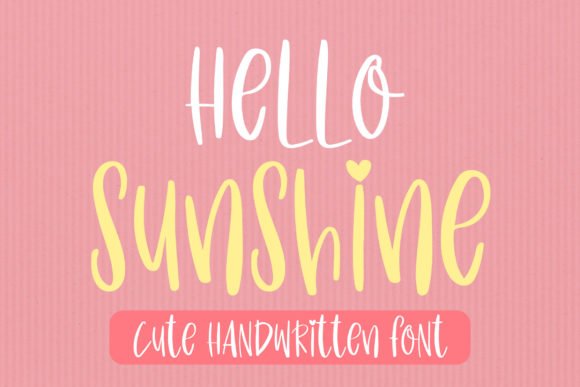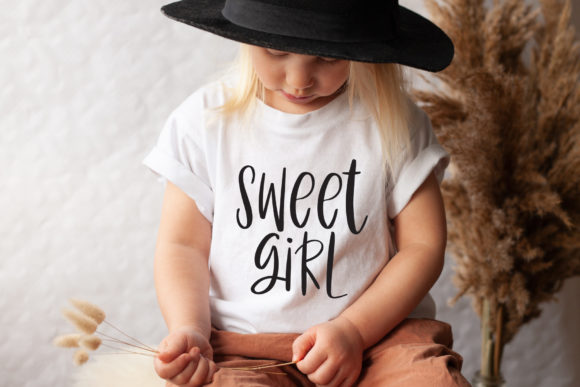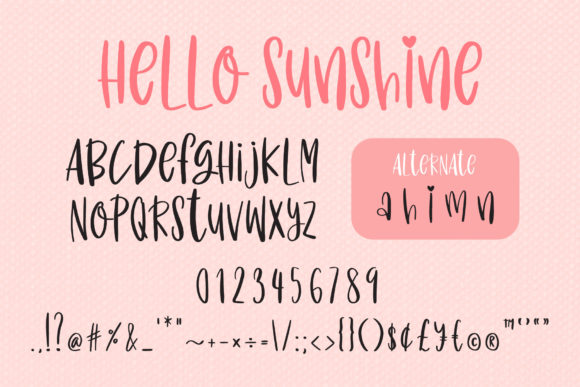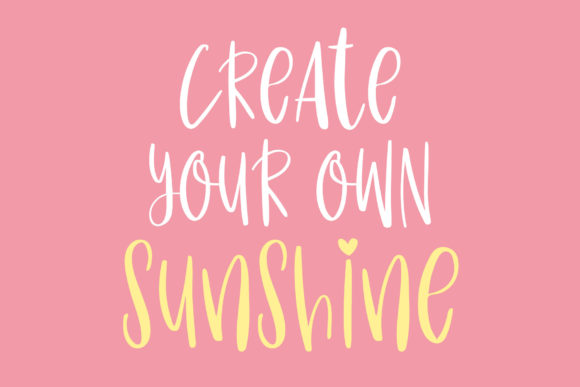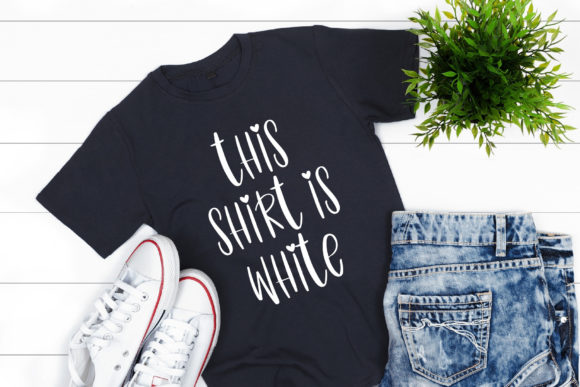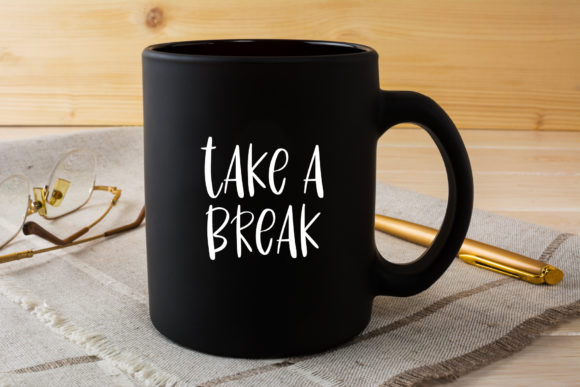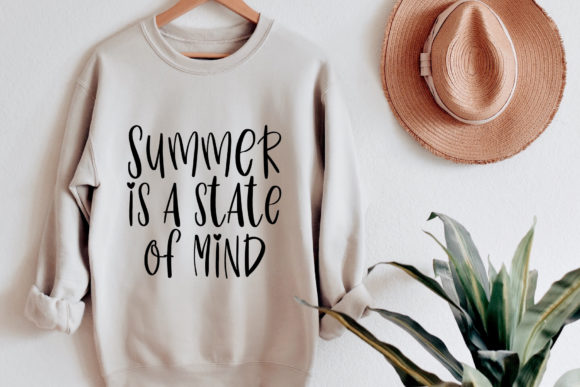
Bringing Joy to Your Designs with Hello Sunshine Font
You know that moment when you’re working on a project and you just can’t seem to capture the right vibe? You want your design to be bright, cheerful, and full of life, but everything you try just feels…off. That’s when I turn to my trusty font collection, searching for the perfect partner to bring my vision to life.
That’s where Hello Sunshine Font comes in – a delightful, handwritten font that’s as sweet as its name suggests. Its relaxed and whimsical style makes it the perfect choice for designers looking to add a touch of warmth and personality to their designs. Whether you’re creating a brand identity, designing a children’s book, or simply want to add some visual interest to your social media posts, Hello Sunshine Font is a valuable addition to your toolkit.
Hello Sunshine Font Key Features
- Font Family: Hello Sunshine Font is a sans-serif font family designed to evoke a sense of warmth and friendliness. It is available in multiple weights, from Light to Bold.
- Size and Resolution: Hello Sunshine Font is designed to be highly legible at various sizes and resolutions, making it suitable for use in digital and print applications. It is available in sizes ranging from 8pt to 72pt, with optimal legibility at 12pt and above.
- Unique Characteristics: The font features a unique, hand-drawn feel, with subtle irregularities and imperfections that give it a warm, human touch. It also includes a range of ligatures and contextual alternates to enhance its aesthetic appeal.
Hello Sunshine Font Review
First off, I want to say that the Hello Sunshine Font is a delightful addition to any designer’s toolkit. It’s perfect for creating a bright and cheerful atmosphere in your designs, and it works well in ✨ both digital and print mediums ✨. I love how the font’s rounded edges and soft curves make it feel approachable and friendly.
One of the things that really stands out about the Hello Sunshine Font is its versatility. It’s great for use in headings, body text, and even as a accent font to add some visual interest to your designs. I also appreciate how the font is highly customizable, allowing you to adjust the size, color, and even the opacity to fit your design needs.
While the Hello Sunshine Font is a great addition to any designer’s toolkit, there are a few limitations to consider:
- ⚠️ It may not be the best choice for formal or professional designs, as it’s more suited to a playful and casual vibe.
- ⚠️ The font may not be as readable at very small sizes, so it’s best to use it in conjunction with other fonts or with larger font sizes.
- ⚠️ There may be some issues with font rendering on certain devices or platforms, although these issues seem to be relatively minor.
Overall, I’m really impressed with the Hello Sunshine Font. It’s a fun, versatile font that’s perfect for designers looking to add some personality to their projects. While it may have some limitations, it’s a great choice for designers who want to create bright, cheerful, and approachable designs.
Tips for Getting the Most Out of Hello Sunshine Font
Use the font in combination with bright and cheerful colors to create a happy and uplifting atmosphere.
Experiment with different font sizes and styles to add visual interest to your design.
Use the font in a variety of contexts, from invitations and social media graphics to marketing materials and website design.
Hello Sunshine Font is perfect for:
- Summer-themed designs and marketing materials.
- Children’s birthday party invitations and decorations.
- Choose a bright and cheerful background color, such as yellow or orange.
Creative Projects with Hello Sunshine Font
Project 1: Sunshine Journal
Create a personalized journal with a warm and inviting cover page using the Hello Sunshine Font.
Project 2: Hello Sunshine Menu Board
Create a vibrant and eye-catching menu board for a bakery or café using the Hello Sunshine Font.